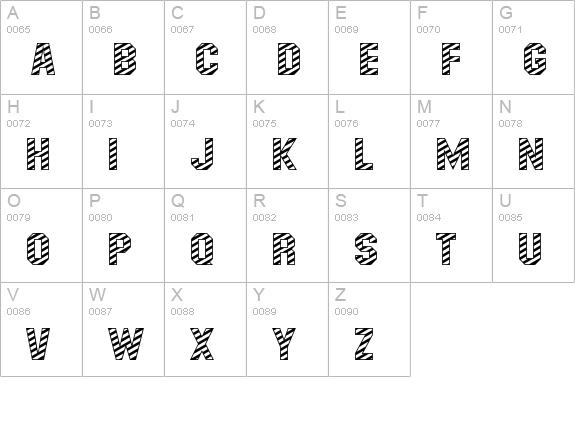
MasheenConvicted Font Details
MasheenConvicted is a captivating and edgy font that exudes a sense of rebellion and raw energy. With its bold, angular letters and gritty texture, this font is perfect for projects that require a touch of defiance and non-conformity. Whether you are designing posters for a rock concert or creating artwork for a streetwear brand, MasheenConvicted will make your text stand out and leave a lasting impression. This font is not only visually striking, but it also offers a unique sense of freedom. MasheenConvicted breaks away from the constraints of traditional typography, embracing a rebellious spirit that encourages self-expression and individuality. It is a font that dares to challenge the norms and break free from the confines of convention. What sets MasheenConvicted apart is not just its bold design and rebellious attitude, but also the fact that it is freely available to download at FontsMarket.com. This means that you can unleash your creativity without any limitations or restrictions. Whether you are a professional designer or an aspiring artist, MasheenConvicted gives you the freedom to experiment and create without any cost. So, if you are looking to add a touch of rebellion and individuality to your designs, look no further than MasheenConvicted. Download this font for free at FontsMarket.com and let your imagination run wild. Embrace the freedom of expression and let MasheenConvicted be the voice of your creativity.